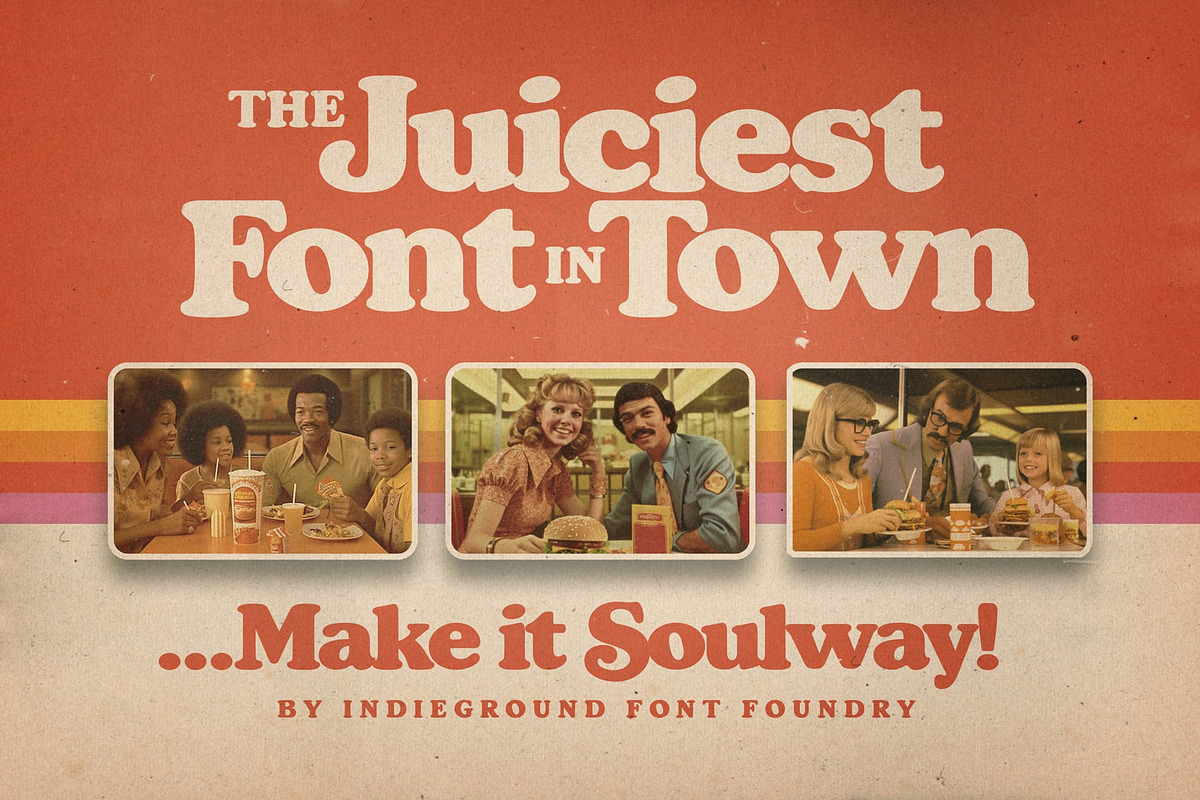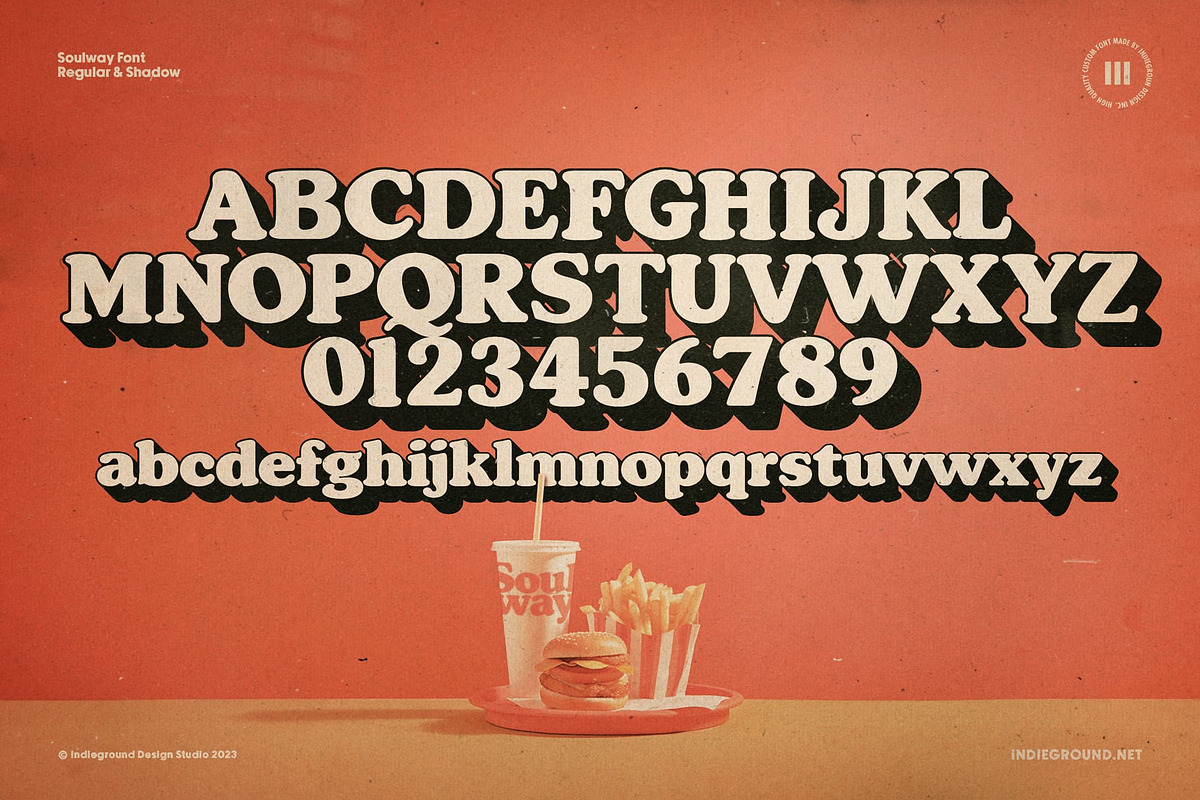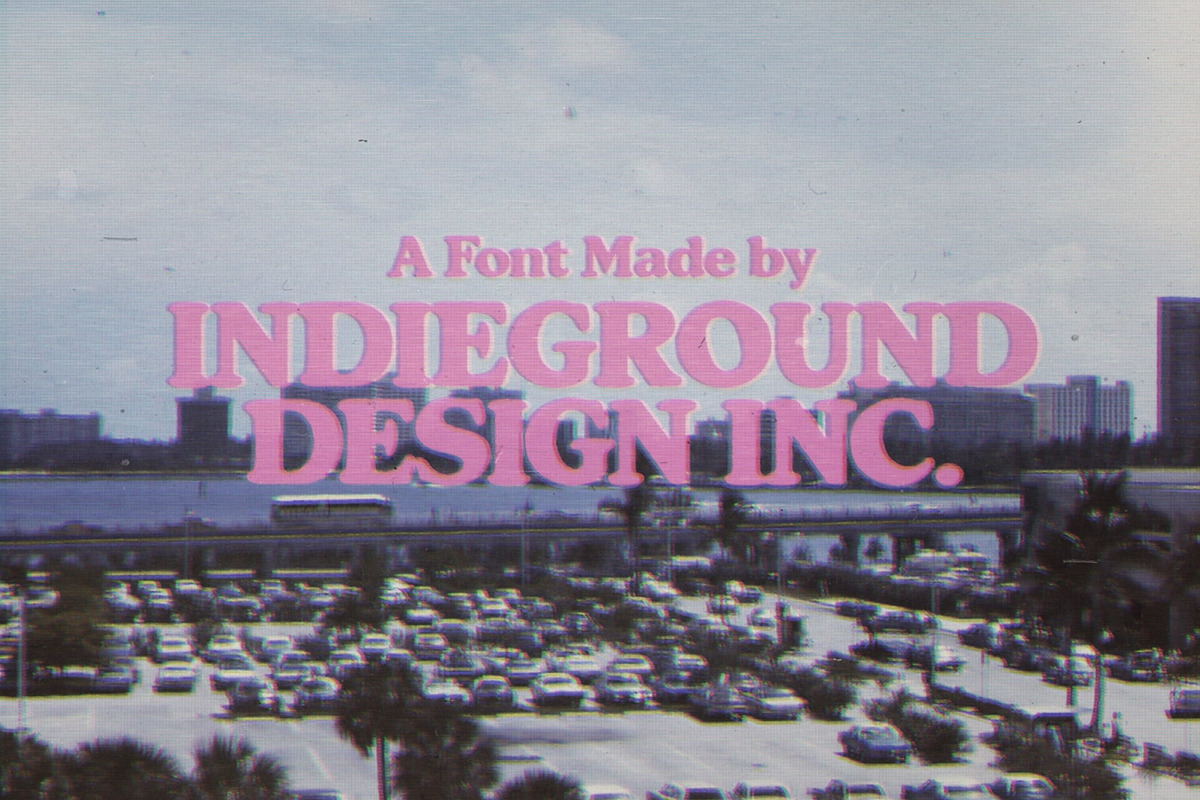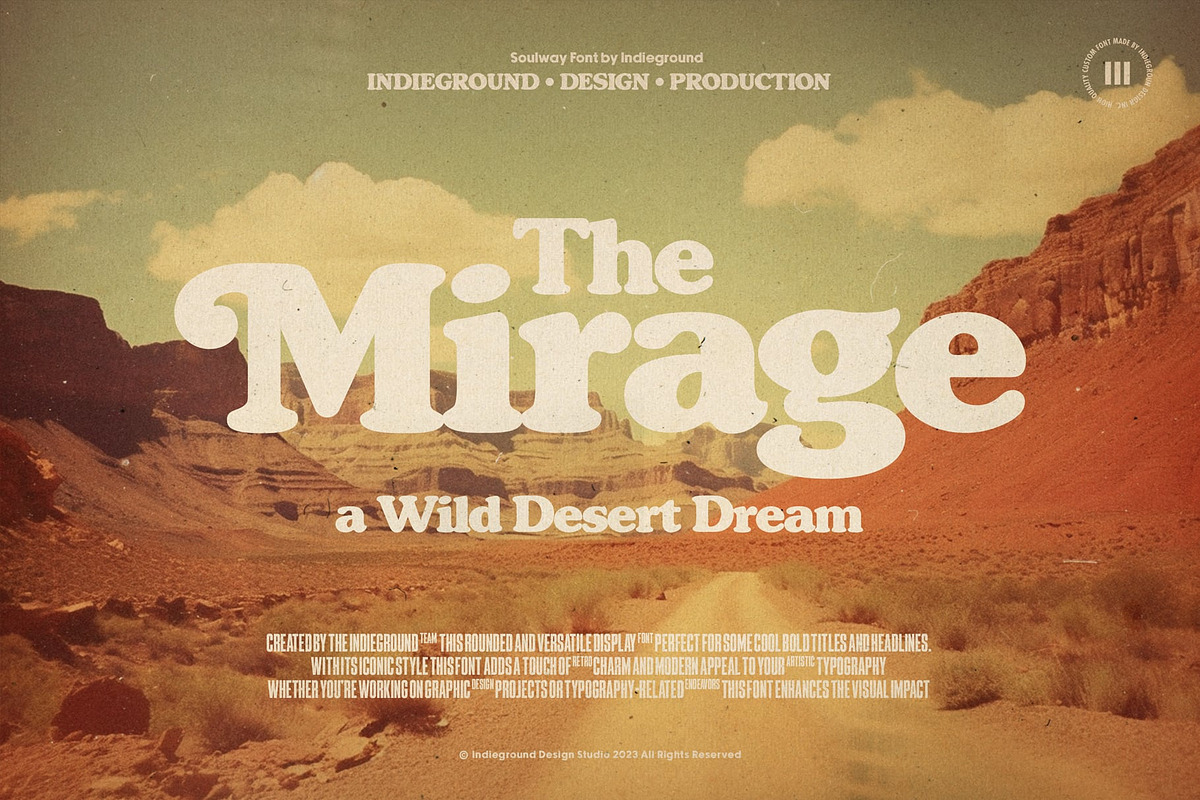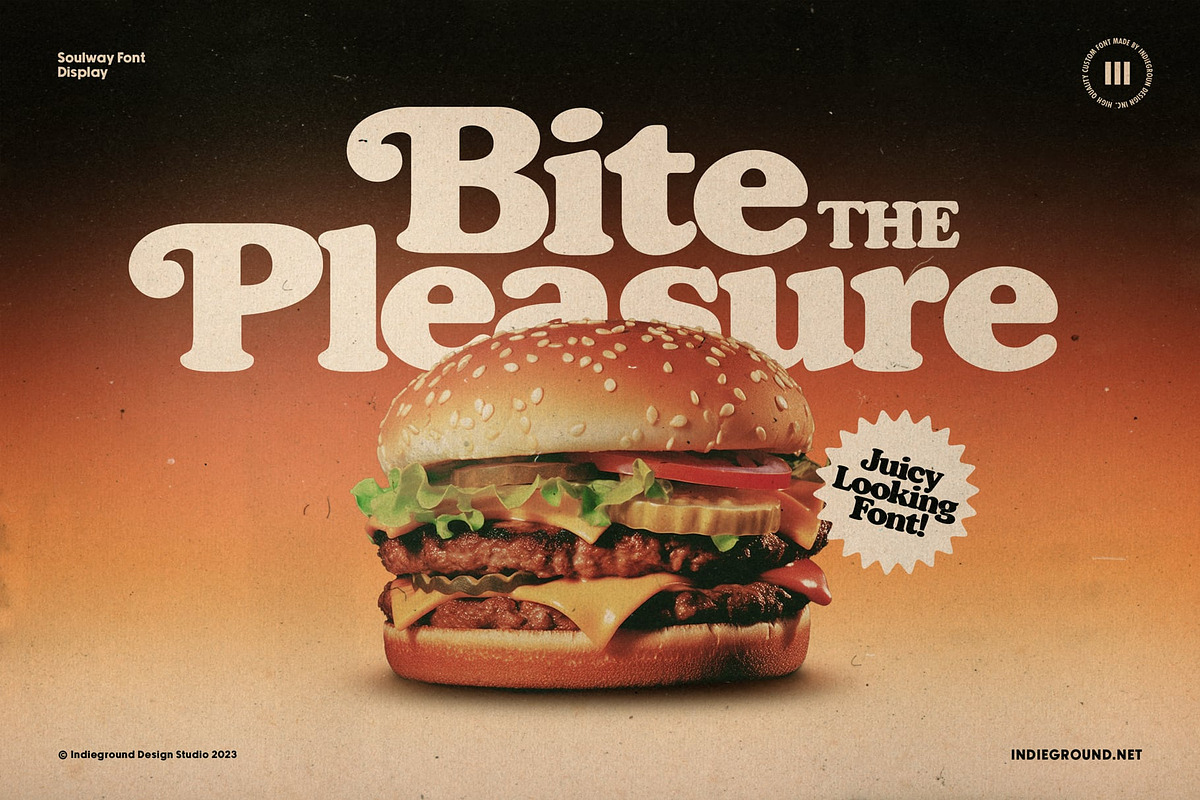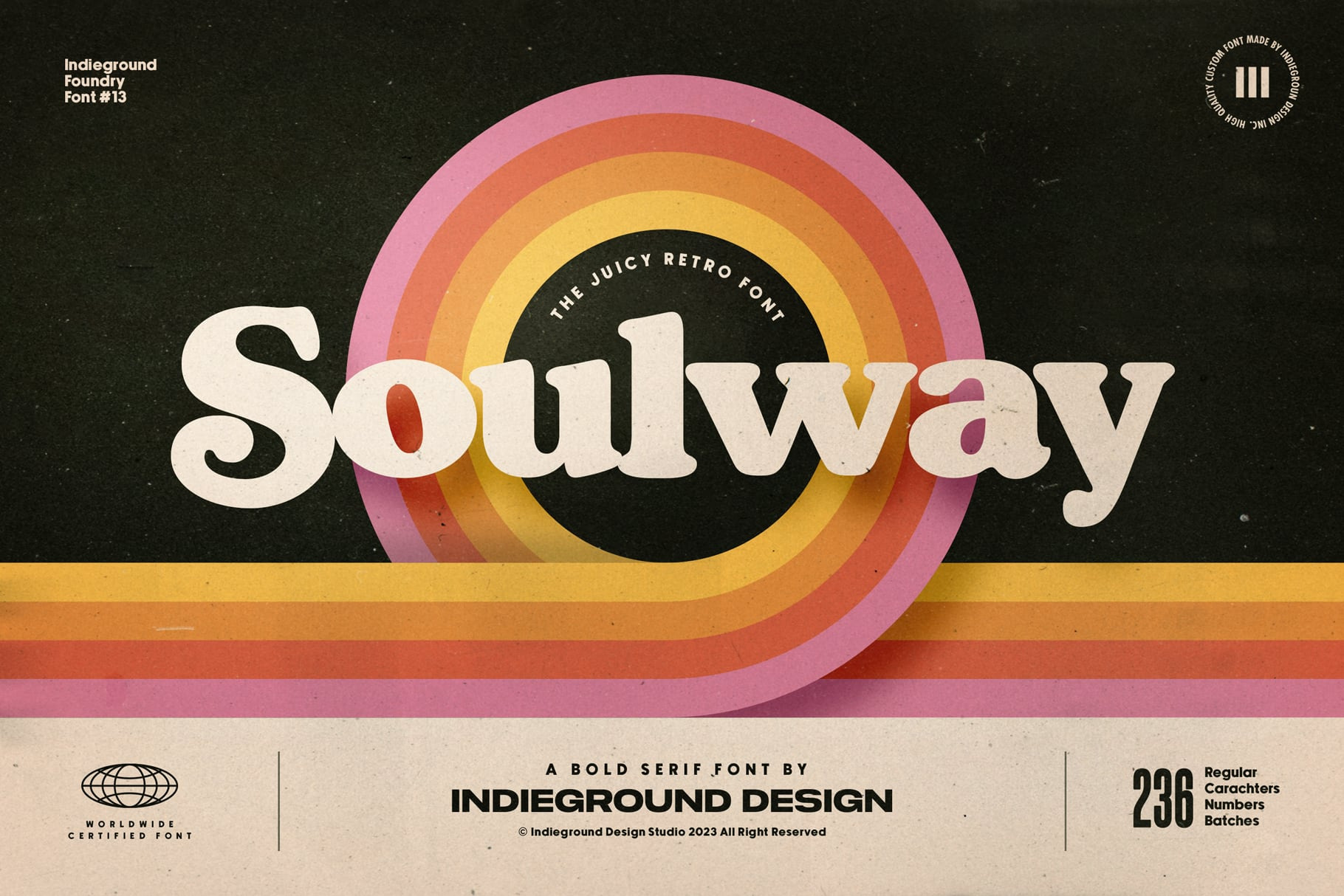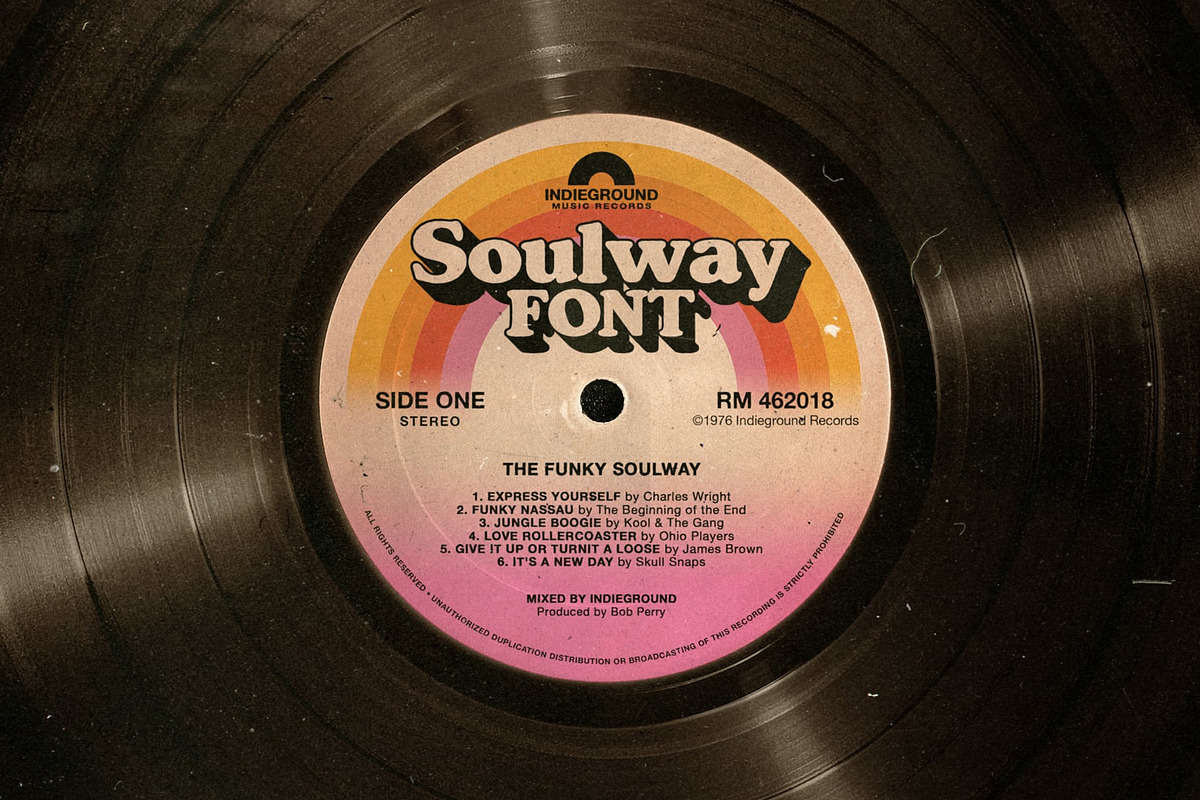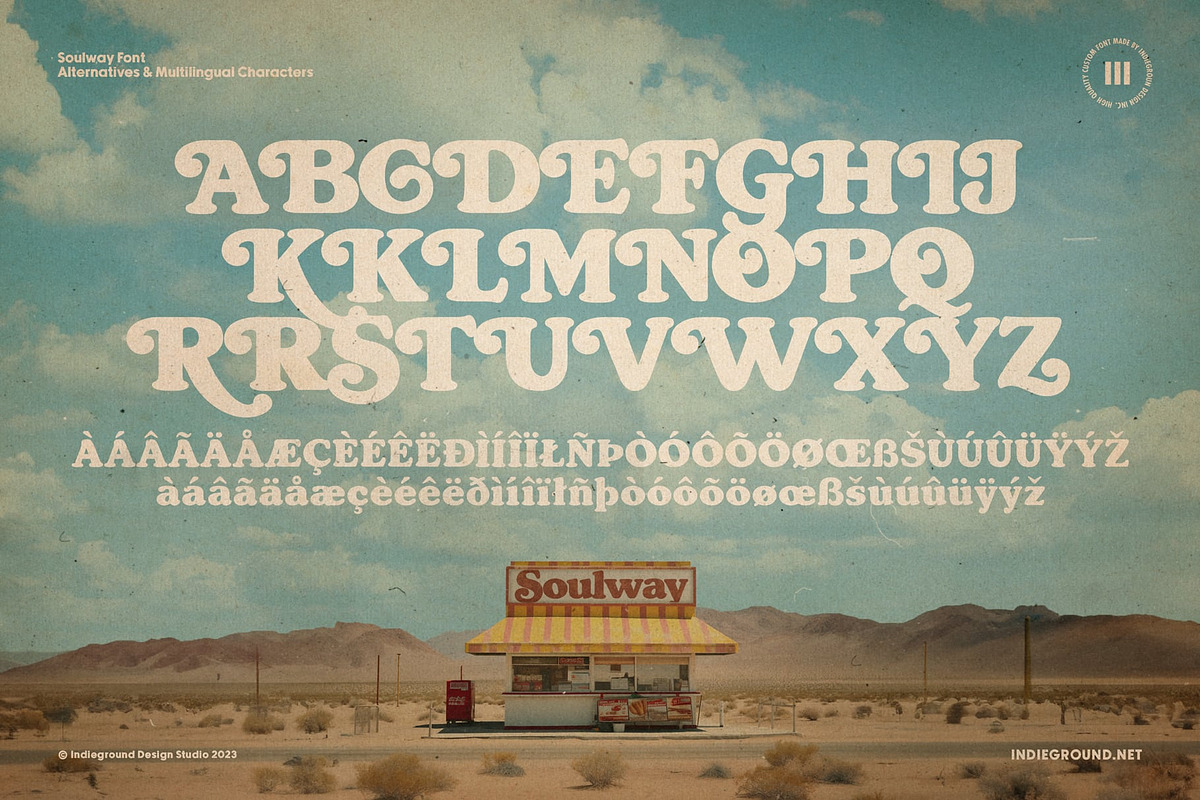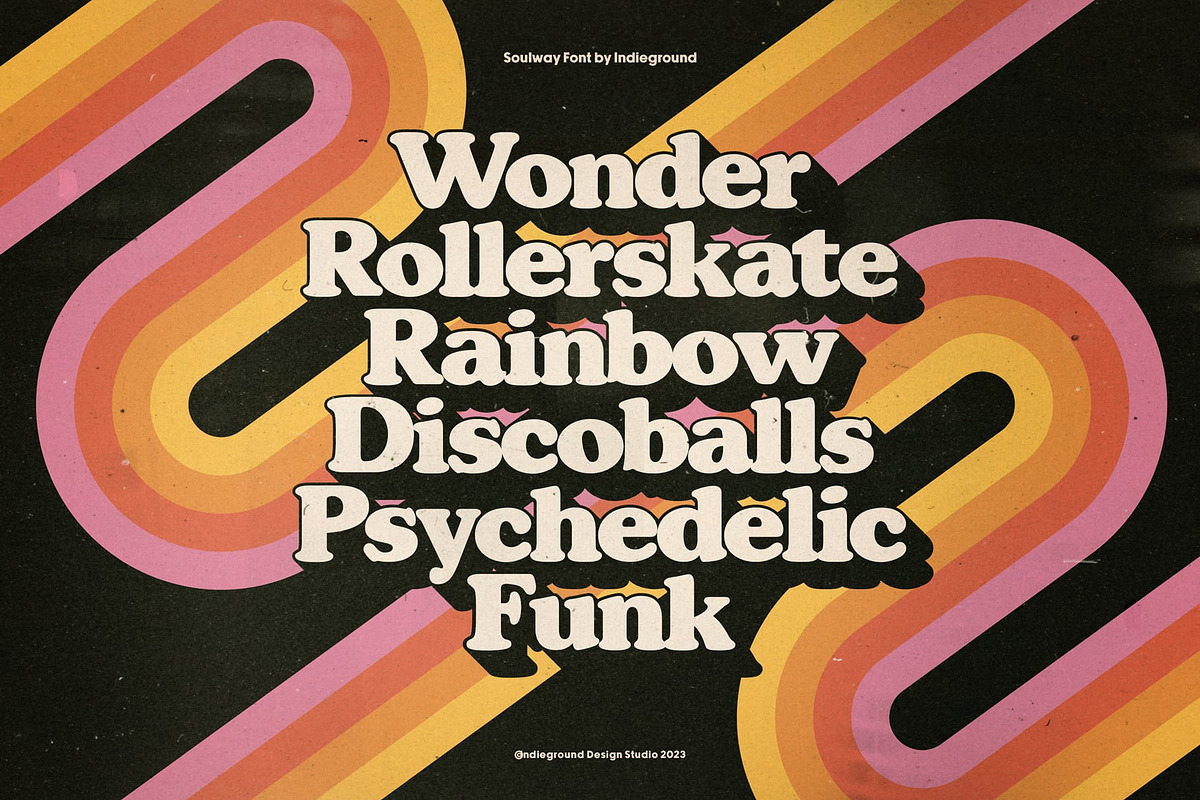
Soulway Font
Soulway Font by Indieground This bold, curvy serif font inspired by 70s atmospheres is ideal for giving a retro touch to your digital compositions. Inspired by one of the most iconic typefaces of the last century, this bold display font comes in regular and shadow versions. It can be used to create nostalgic artwork, album covers, posters, and flyers that give off the perfect vintage mood. On top of that, it is ideal for crafting standout, nostalgic pieces for your social media feed. Thanks to its classic curvy nature, this font will let your creativity flow, bringing back those juicy atmospheres we all love!
This 70s-inspired font was designed by the Indieground team with the maximum attention to detail, for you to bring back those familial, juicy atmospheres typical of a classic fast-food joint or a soul album cover. Looking for more iconic fonts for your retro digital artwork? Let us show you some more nostalgic typefaces that will get your creativity flow!